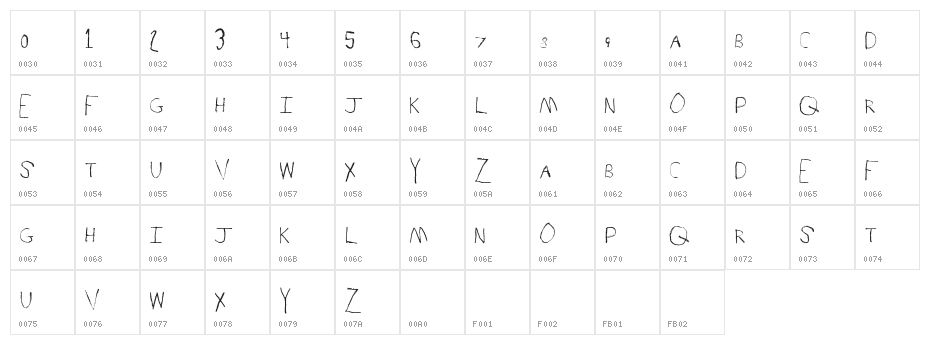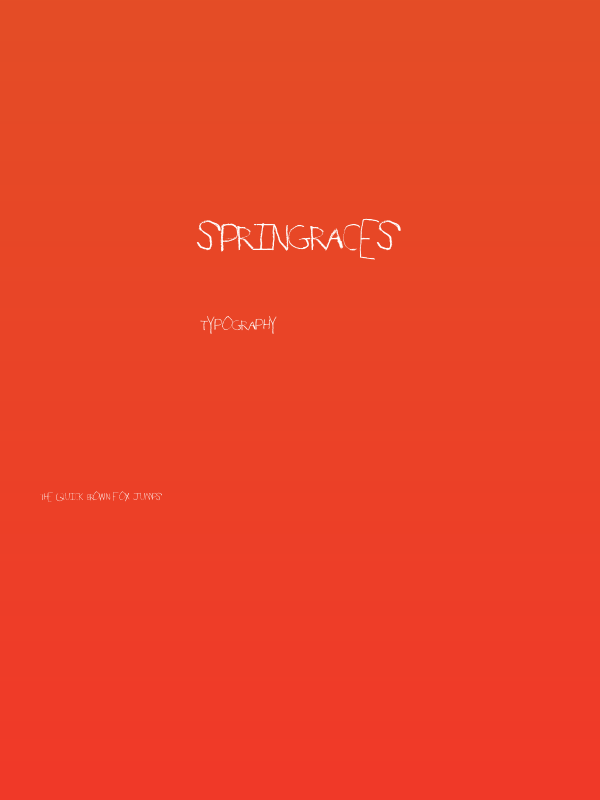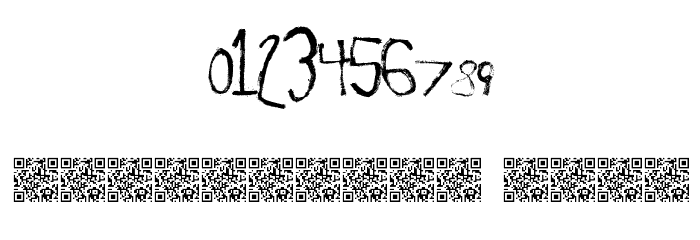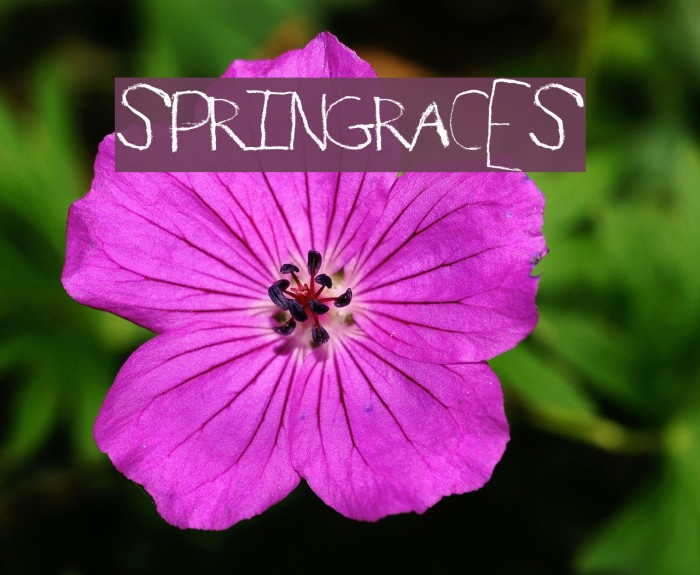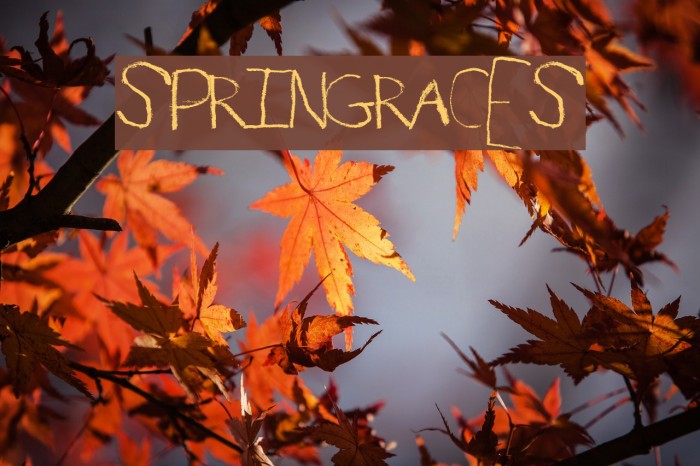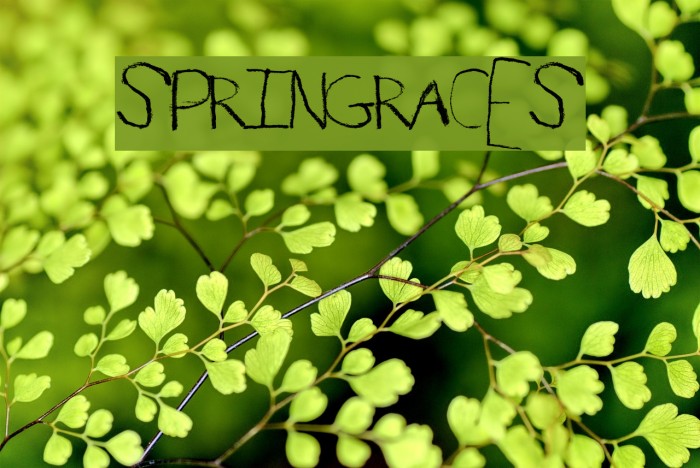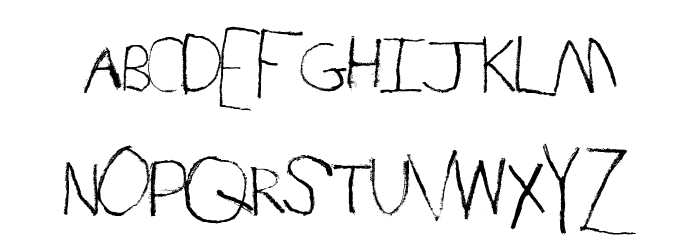
SpringRaces Font
This font features a unique, hand-drawn style with a slightly rough and textured appearance, giving it a casual and artistic feel. The characters are unevenly weighted, with some strokes appearing thicker than others, adding to its organic and spontaneous look. The uppercase and lowercase letters maintain a consistent style, with a playful and informal vibe. The numbers follow the same aesthetic, with varying stroke widths and a slightly irregular baseline. This font is perfect for projects that require a personal touch or a creative edge.
| Overall Style | Artistic |
| Use Case | Logos, Headlines, Creative projects |
| Proposed Projects | Ideal for creative projects such as greeting cards, posters, artistic branding, and personal invitations. |